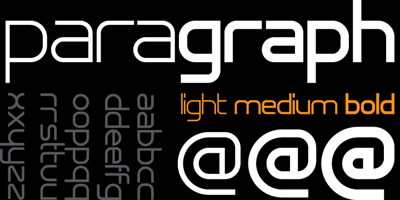
Paragraph Font Family was designed by Jan Schmoeger and published by Paragraph. Paragraph contains 3 styles and family package options. This decorative, headline or logotype geometric font consists entirely of lowercase letters. The glyphs of uppercase are rounder than their lowercase counterparts, allowing playful interaction within words, contrasting round and square shapes. The font is the result of a new identity development for Paragraph.